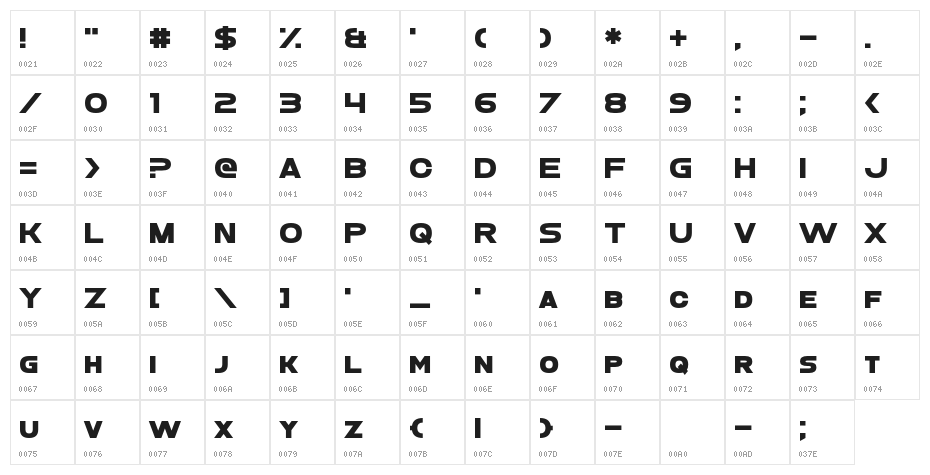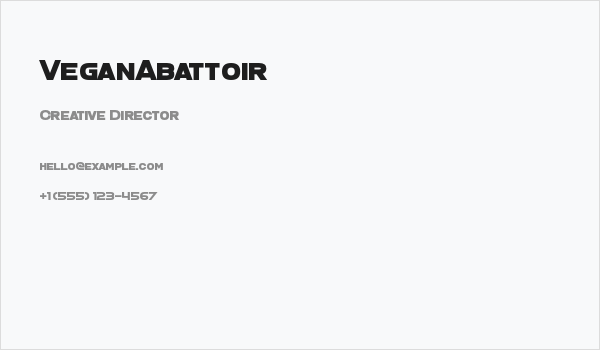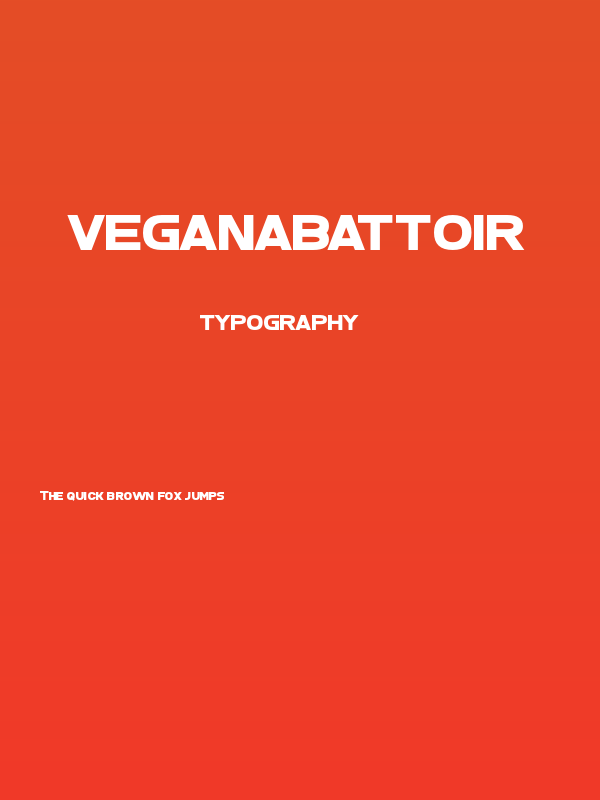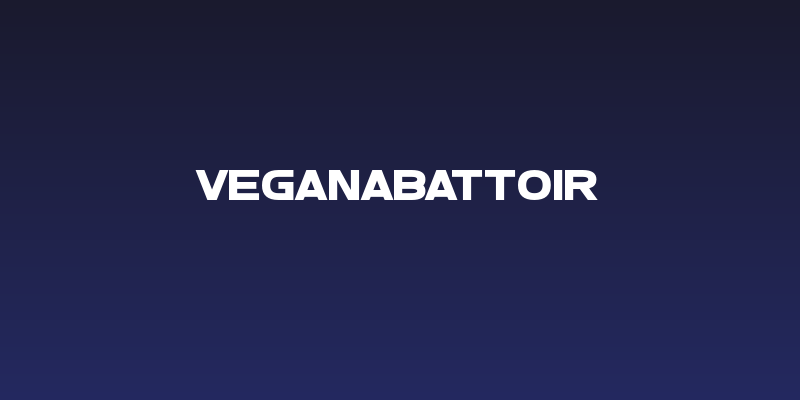
VeganAbattoir Font
VeganAbattoir Description
This font features a bold and assertive style with thick, uniform strokes that convey strength and modernity. The characters are sans-serif, offering a clean and straightforward appearance. The uppercase letters are particularly striking, with a geometric influence that enhances their visual impact. The numerals and special characters maintain the same boldness, ensuring consistency across all glyphs. This font's design is highly legible, making it suitable for various applications where clarity and emphasis are required.
| Proposed Projects | Ideal for branding, headlines, posters, and any design project requiring a bold statement. |